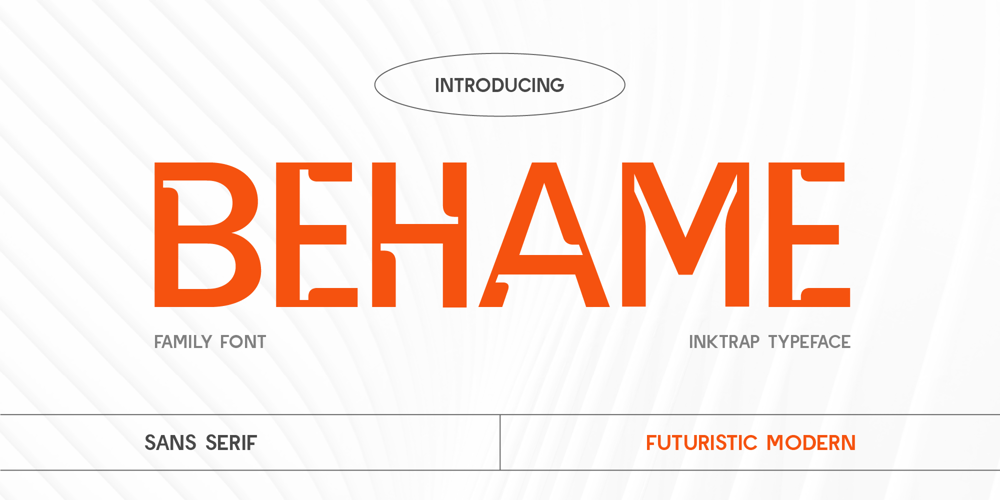
Behame Font Family was designed by Dede Kurniawan and published by Creatifont Studio. Behame contains 14 styles and family package options. Behame is a sleek sans serif font with clean, precise inktraps in every glyph, giving it a distinctly futuristic and modern appeal. The dynamic design offers a sense of movement and sharpness, making it perfect for cutting-edge branding and tech-focused designs. Available in a full range of styles from light to black, with italic options for each weight, Behame’s versatility and stylish inktrap detailing make it an excellent choice for both bold headlines and refined body text. Its unique features provide a dynamic yet clean look, ideal for projects that demand a forward-thinking aesthetic.A SUMMARY OF WHAT’S INCLUDED: Standard Character A-Z, a-z, 0-9, Punctuation & symbols 7 Style Weight: Light, Regular, Medium, SemiBold, Bold, ExtraBold, Black Italic style on each weight Multilingual Support Works on PC & Mac Simple installation Accessible in Adobe Creative Suite (Ai, Ps, Id, etc.) even work on Microsoft Word. PUA Encoded Characters – Fully accessible without additional design software. 🌟If you come across any issues or notice anything we might have overlooked while using this product, please feel free to reach out to us. We greatly value your feedback as it helps us enhance and refine our products. Thank you!